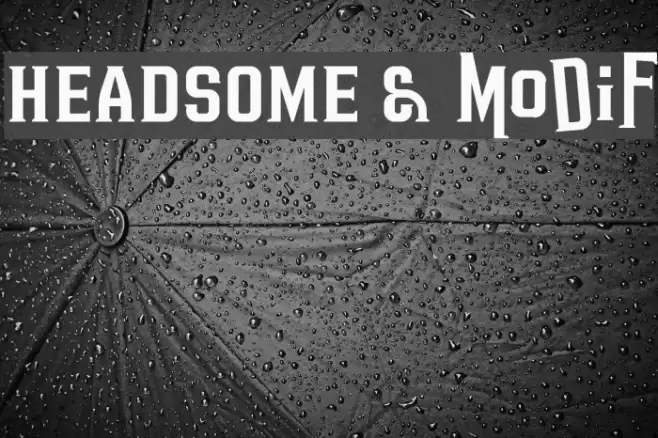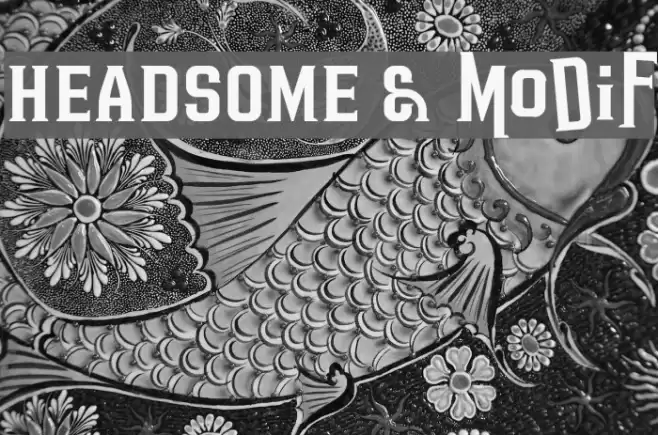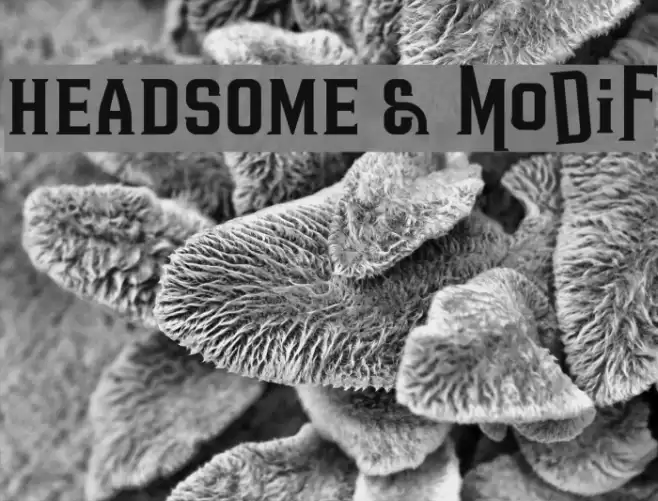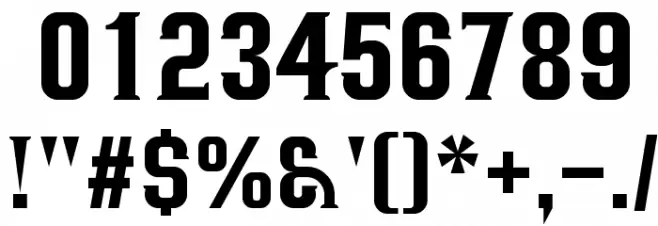
HEADSOME & modif Font
HEADSOME & modif Description
This font features a bold and striking design with a strong presence. The uppercase letters are tall and slightly condensed, giving them a commanding appearance. The lowercase letters maintain a similar style, with some characters exhibiting unique, playful variations that add character. The numbers are robust and consistent with the overall boldness of the font. Special characters are creatively designed, maintaining the font's distinctive style. The font's overall look is reminiscent of vintage poster typography, making it ideal for projects that require a bold and eye-catching display.
A bold, vintage-inspired font with a strong, commanding presence from Uncategorized fonts.
- Proposed Projects: Ideal for posters, headlines, branding, and any project requiring a bold, vintage aesthetic.
- Overall Style: Vintage